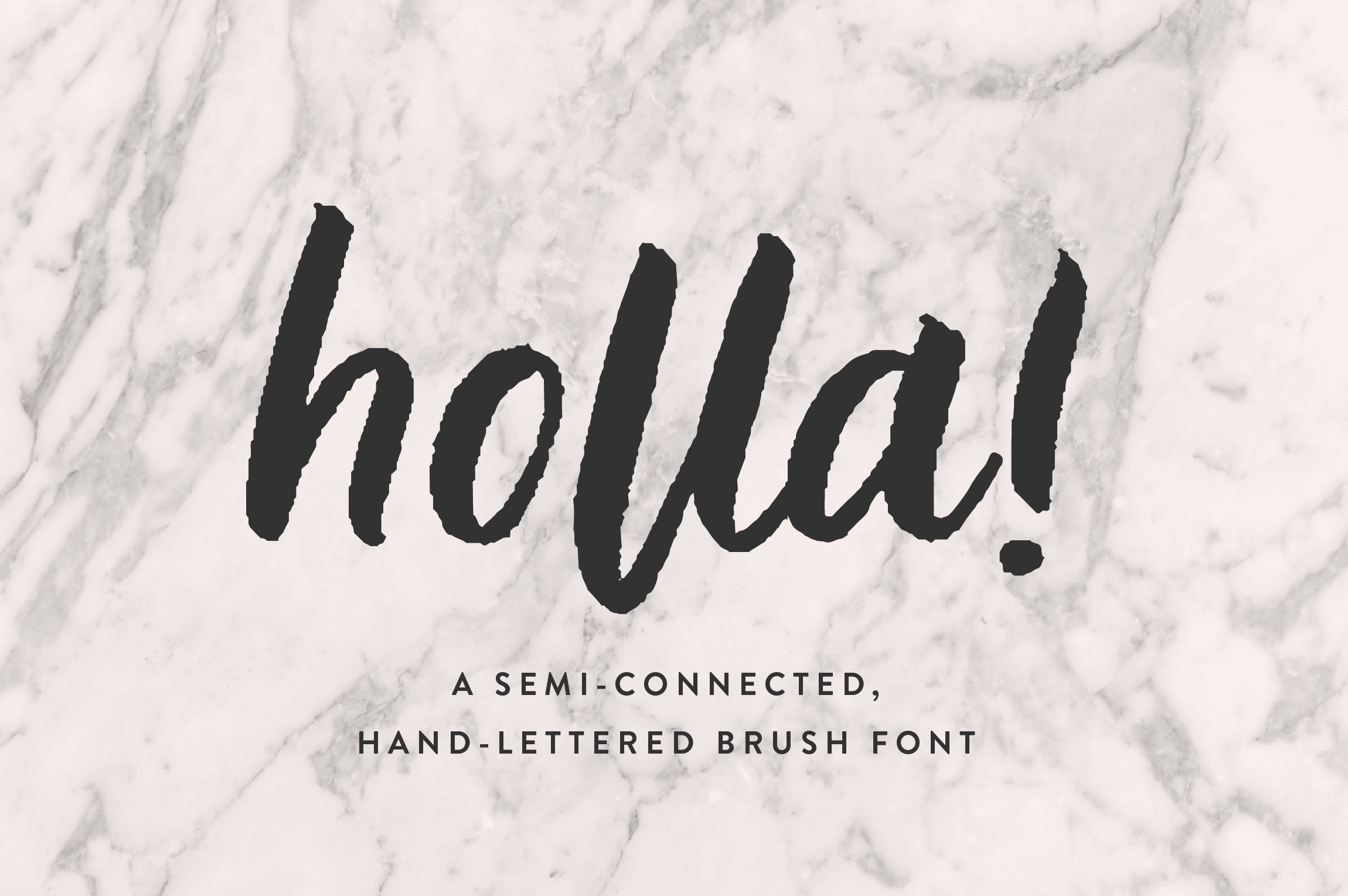
Holla Script Font
**Introducing Holla Script Brush Font, a semi-connected, hand-lettered brush font. With its brush-textured charm, Holla is perfect for stationery, branding projects, editorial features, product packaging, and more. **
Holla Regular - The main font file, available in OTF and TTF formats, includes more than 400 glyphs. Includes multi-language support (for English as well as western and central European languages), a full numeral and punctuation set, additional useful symbols, and standard and discretionary ligatures. Includes double letter ligatures for all 26 lowercase letters to add a little interest and contrast in your font and to improve the flow of the letters.